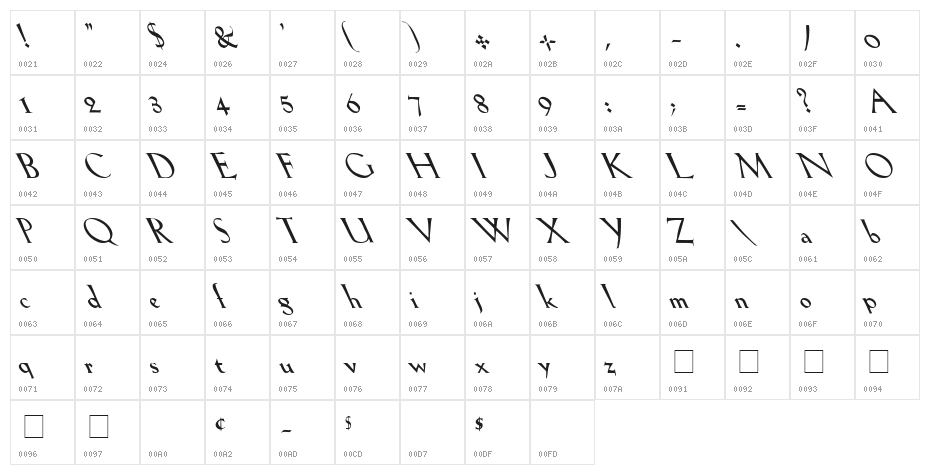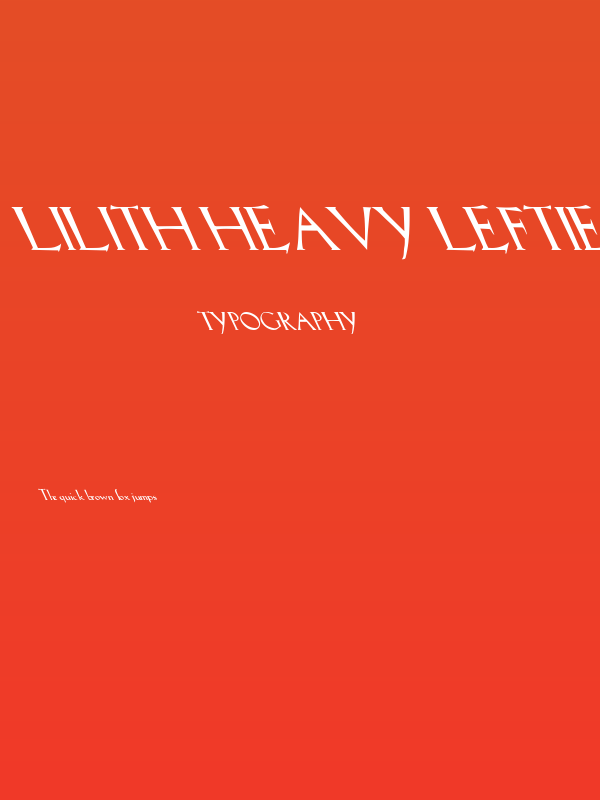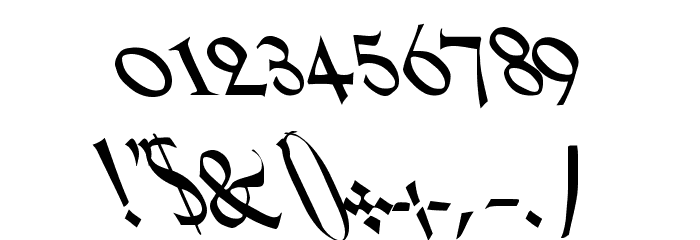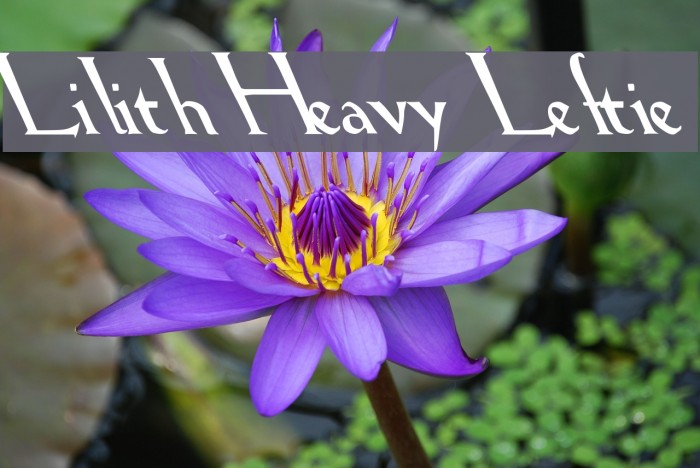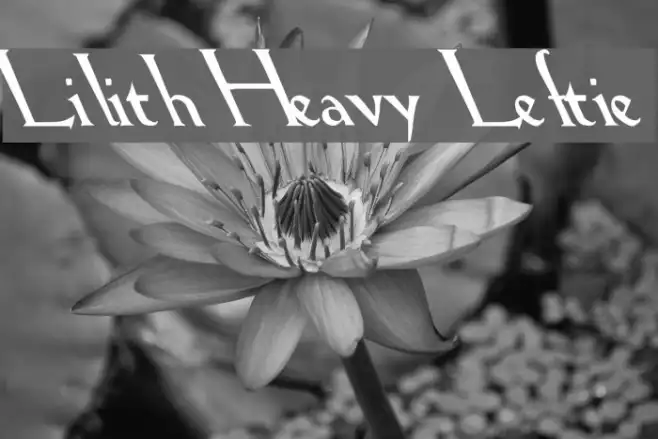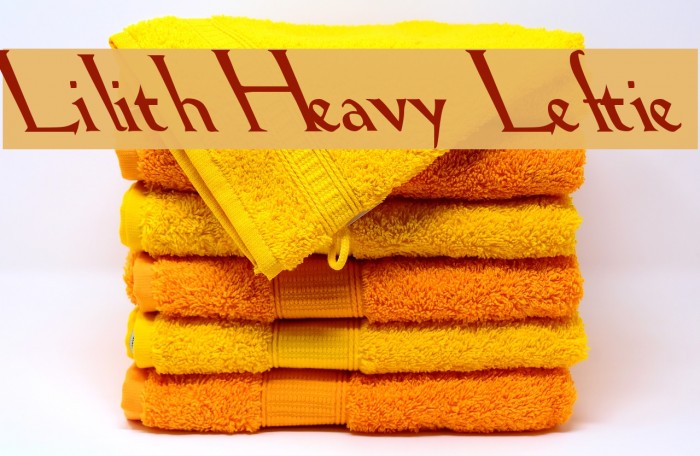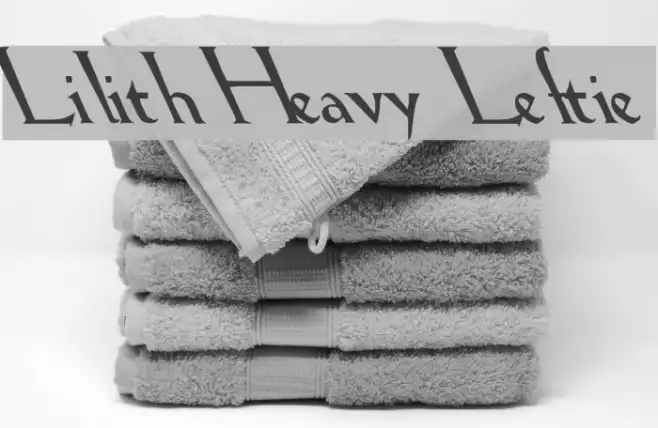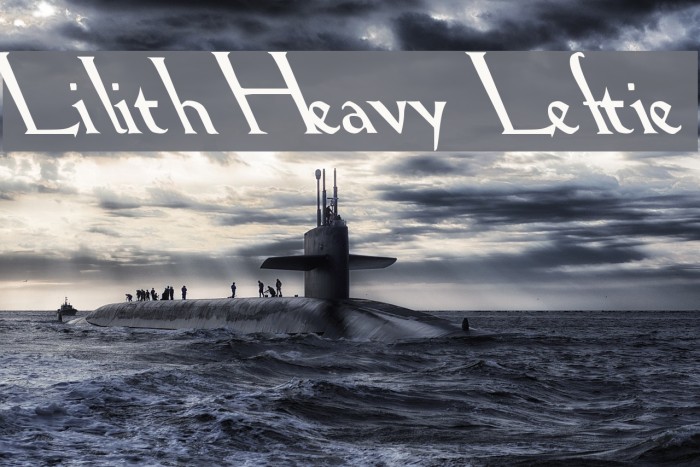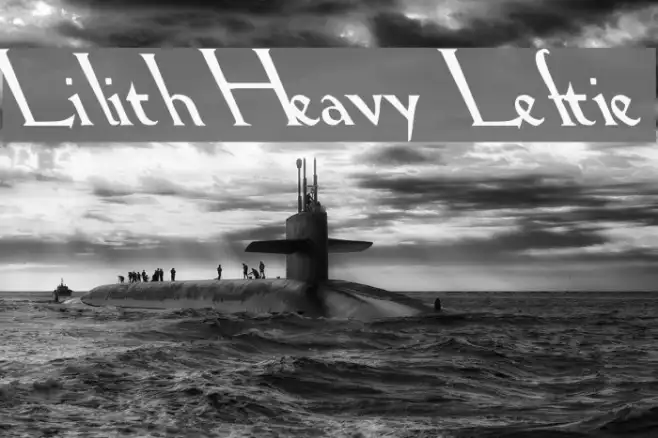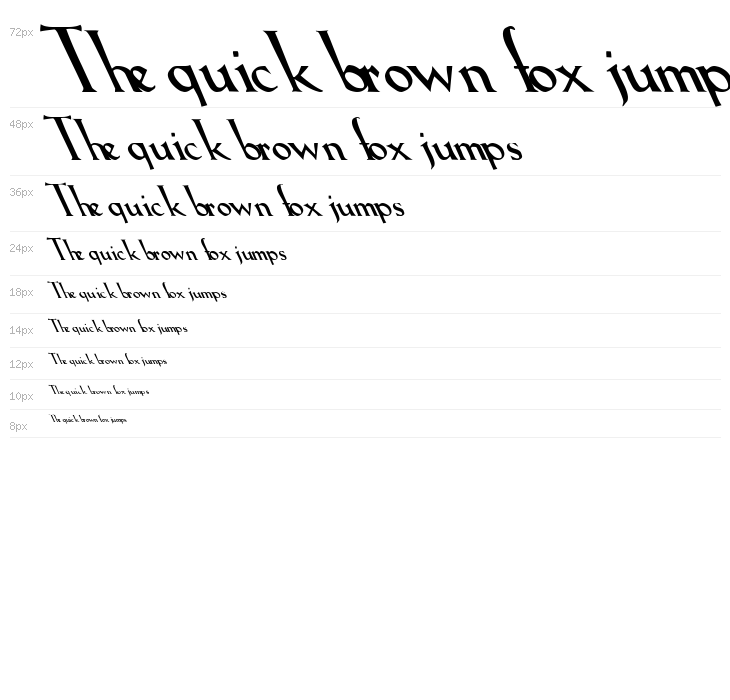
Lilith Heavy Leftie Font
Lilith Heavy Leftie Description
This font features a distinct and edgy style with sharp, angular lines and a slightly gothic influence. The uppercase letters are bold and commanding, while the lowercase letters maintain a consistent style with unique flourishes. The numerals are equally distinctive, with a playful yet sophisticated appearance. Special characters are designed to match the overall aesthetic, making them a seamless addition to any text. The font's unique style makes it suitable for creative and artistic projects, offering a modern twist on traditional gothic elements.
| Overall Style | Modern Gothic |
| Use Case | Headlines, Logos, Artistic Projects |
| Proposed Projects | Ideal for album covers, posters, branding, and creative design projects. |